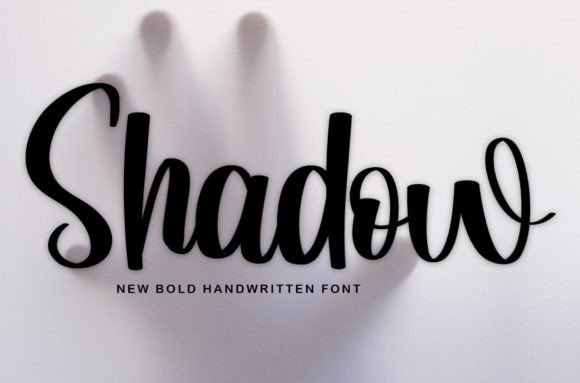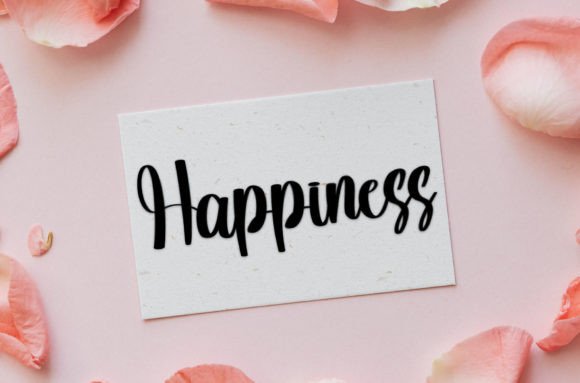
A Fresh and Unique Handwritten Font
Shadow is a modern handwritten font with a clean, beautiful style. Each letter has smooth curves and a relaxed flow, giving your text a polished, professional look. The font feels simple yet special, making it easy to create designs that stand out.
Whether you’re working on branding, social media graphics, or personal projects, Shadow adds a touch of originality that feels fresh and welcoming.
Shadow is a versatile font that works well across many types of design. Use it for YouTube banners, channel art, and cover logos that need a modern look. It’s also perfect for wedding invitations, ID cards, and event flyers.
The simple, unique style makes it ideal for crafts, handmade product labels, and small business branding. No matter the project, Shadow brings a friendly and professional vibe to your work.
This font includes uppercase and lowercase letters, numbers, and punctuation marks. It also features ligatures that help your text flow naturally. These details let you create polished layouts that feel complete and authentic.
Clear, Simple, and Easy to Read
Although Shadow has a handwritten feel, it remains clear and legible at any size. The balanced spacing between letters keeps your text organized, whether you’re designing big titles or small captions.
Many designers like pairing Shadow with clean sans-serif fonts. This combination creates contrast and helps your layout look modern and tidy. Use Shadow for headlines and a sans-serif font for body text. This guides the reader’s eye and makes your designs feel cohesive.
To highlight Shadow’s unique style, use light backgrounds and soft color palettes. Neutral shades like white, beige, and pastel tones help the smooth lines stand out without overwhelming the design.
For wedding materials and invitations, add floral graphics or watercolor textures. These elements enhance the romantic, elegant feel. When designing YouTube banners or digital content, keep your layouts simple so the font remains the focus.
Think about the mood you want to create. Shadow is perfect for projects that should feel warm, modern, and approachable.
Shadow is more than just a handwritten font. It’s a creative tool that transforms ordinary text into something memorable. Its clean shapes and fresh style bring personality to every project.
Adding Shadow to your font library means you’ll always have a reliable choice for any design need. From YouTube banners and wedding invitations to product labels and crafts, this font adapts effortlessly.